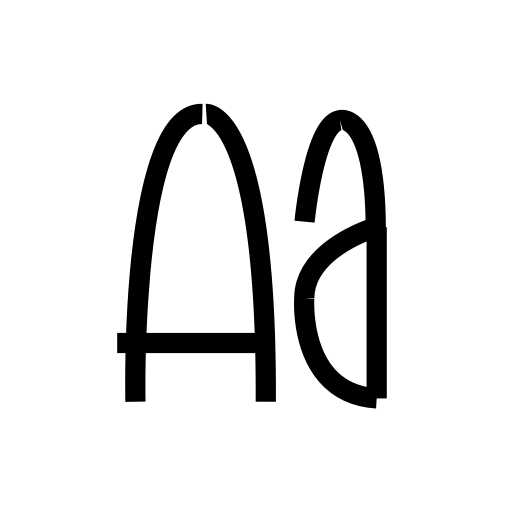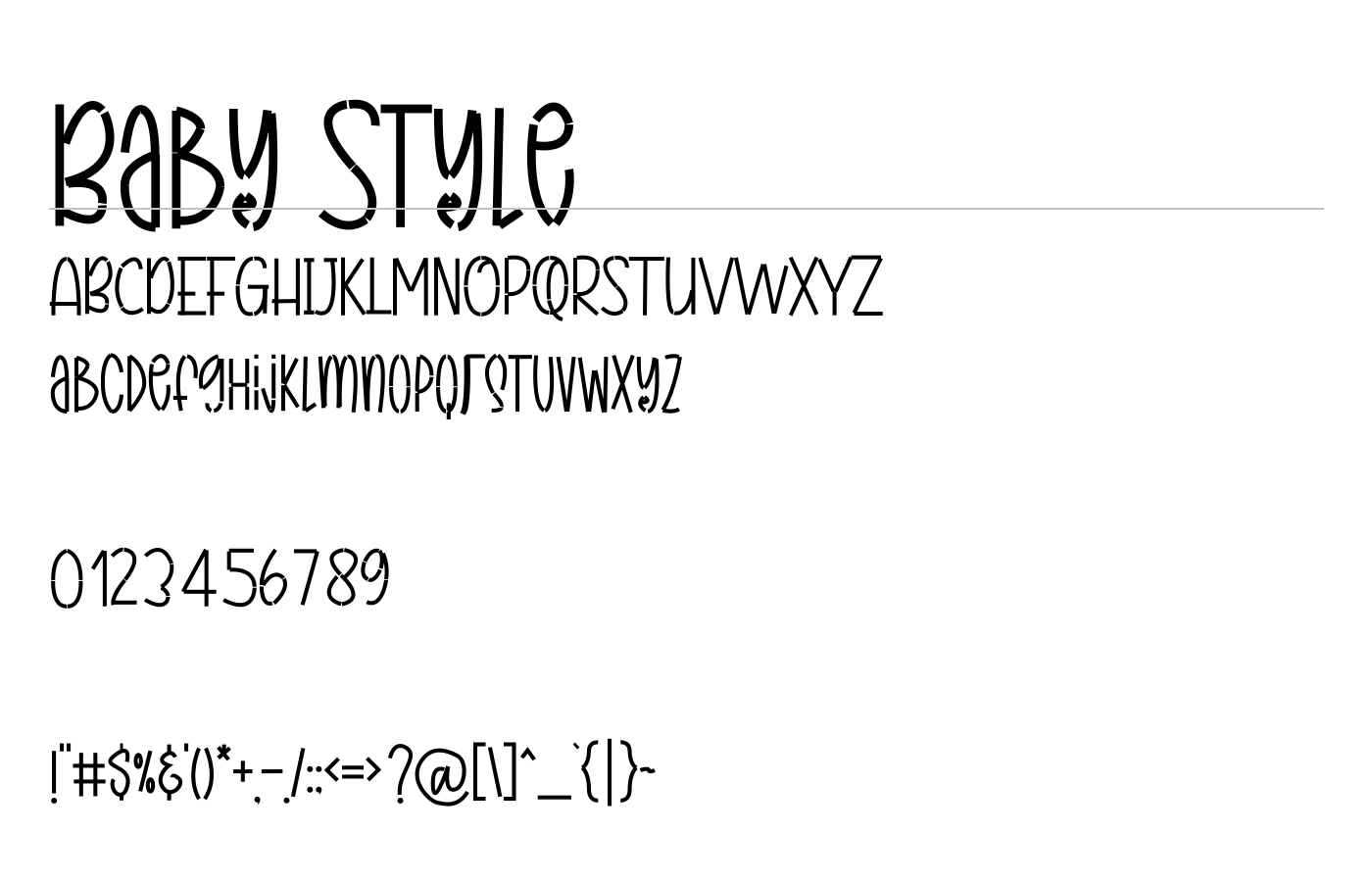
Baby Style is a playful and whimsical sans serif font characterized by its tall, narrow letterforms and quirky, hand-drawn feel. With its irregular strokes and charming details like heart-shaped terminals, this font brings a friendly and youthful personality perfect for children's products, casual branding, and creative projects. Its light weight and airy spacing make it ideal for headlines and decorative use rather than body text, conveying a fun and approachable mood.
Baby Style Font
About Baby Style Font
| Font family | Baby Style Font |
| Designer | Eddy Istiyan Zuhri |